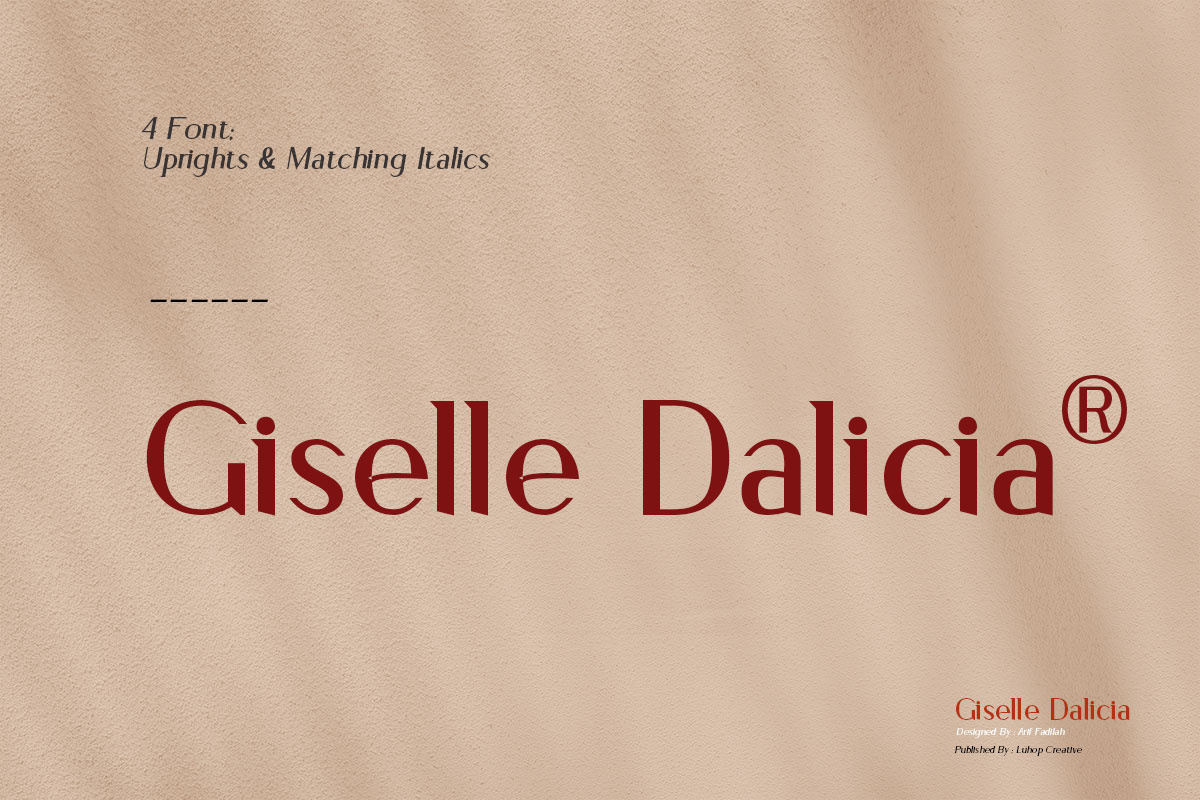
Giselle Dalicia Font
Giselle Dalicia is an elegant and assertive serif font. Fall for its ravishing style and use it to create gorgeous wedding invitations, beautiful stationary art, eye-catching social media posts, and much more!